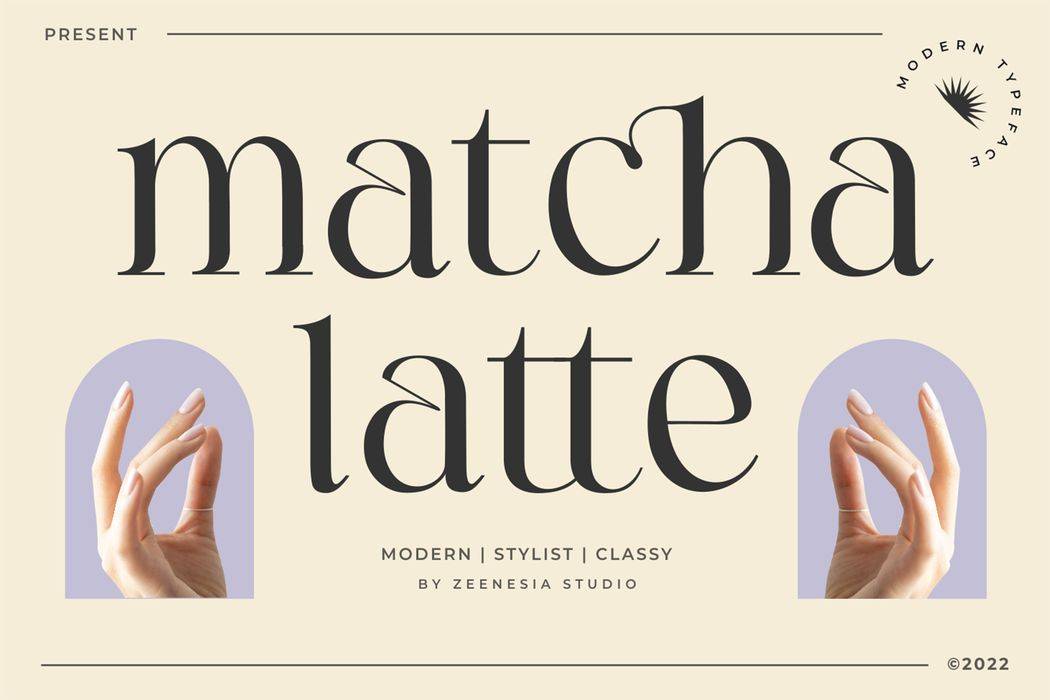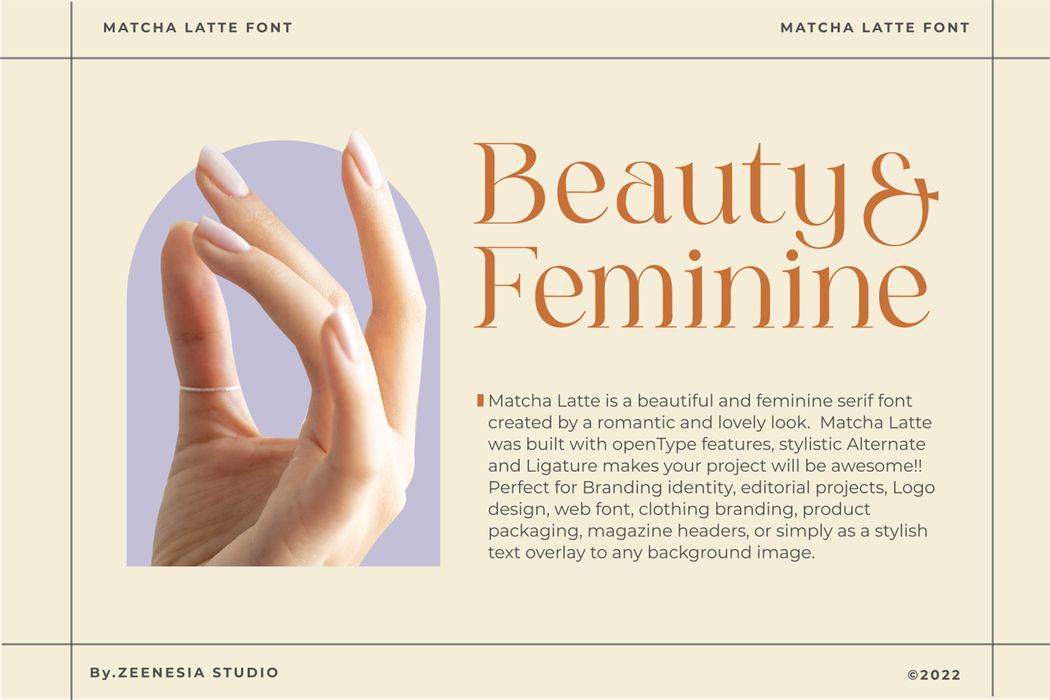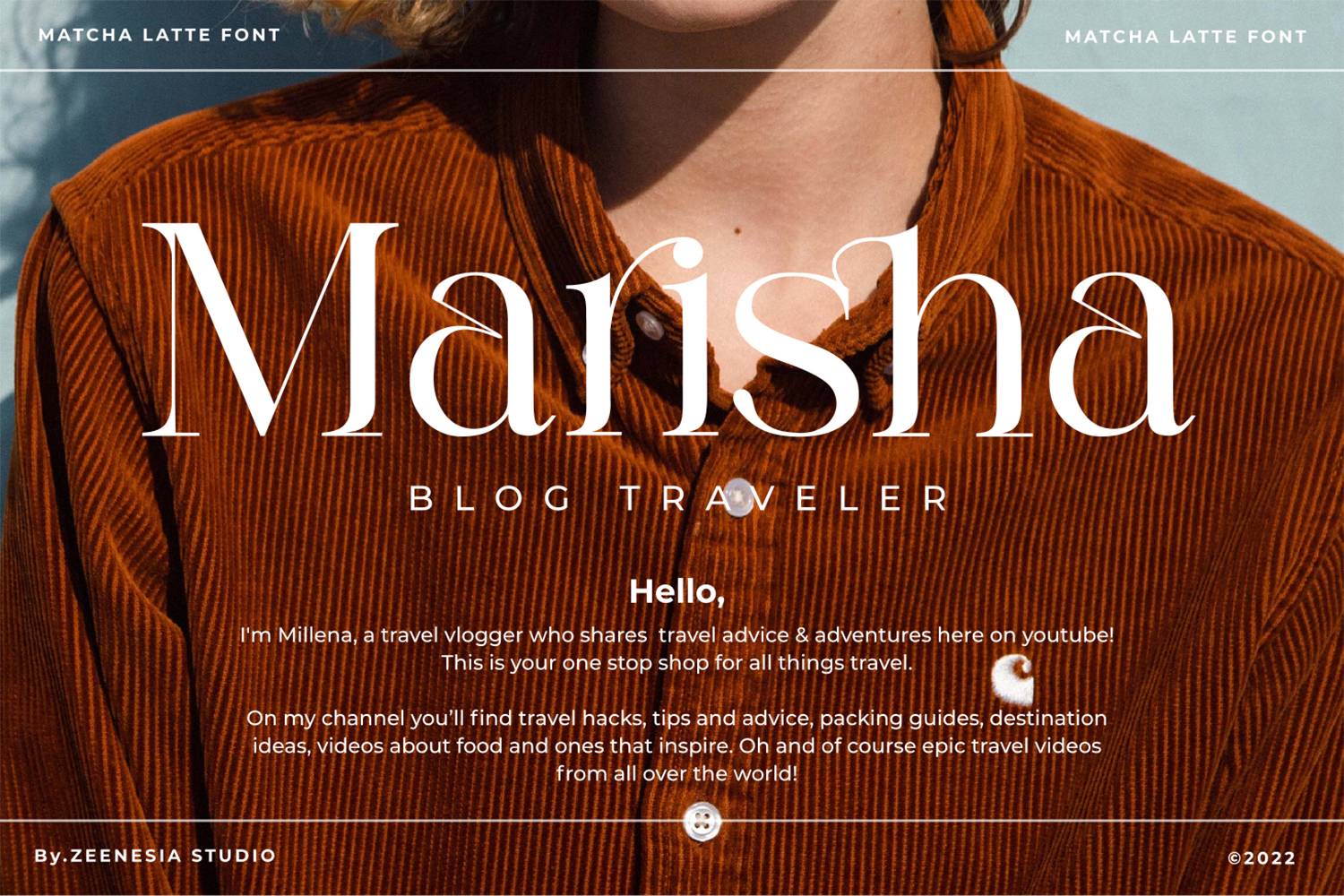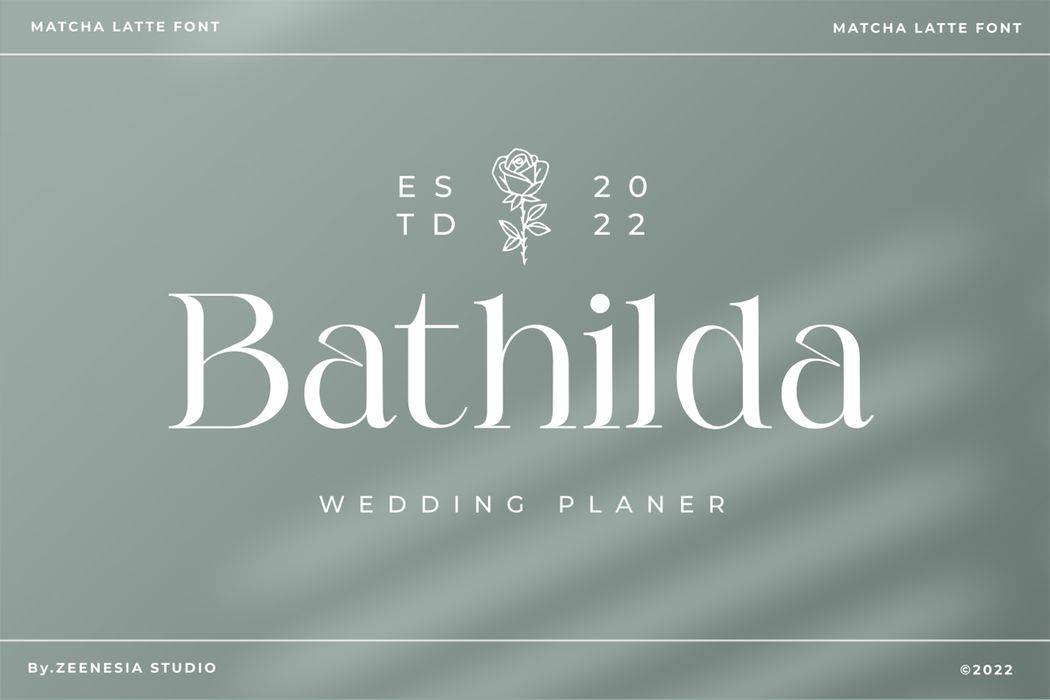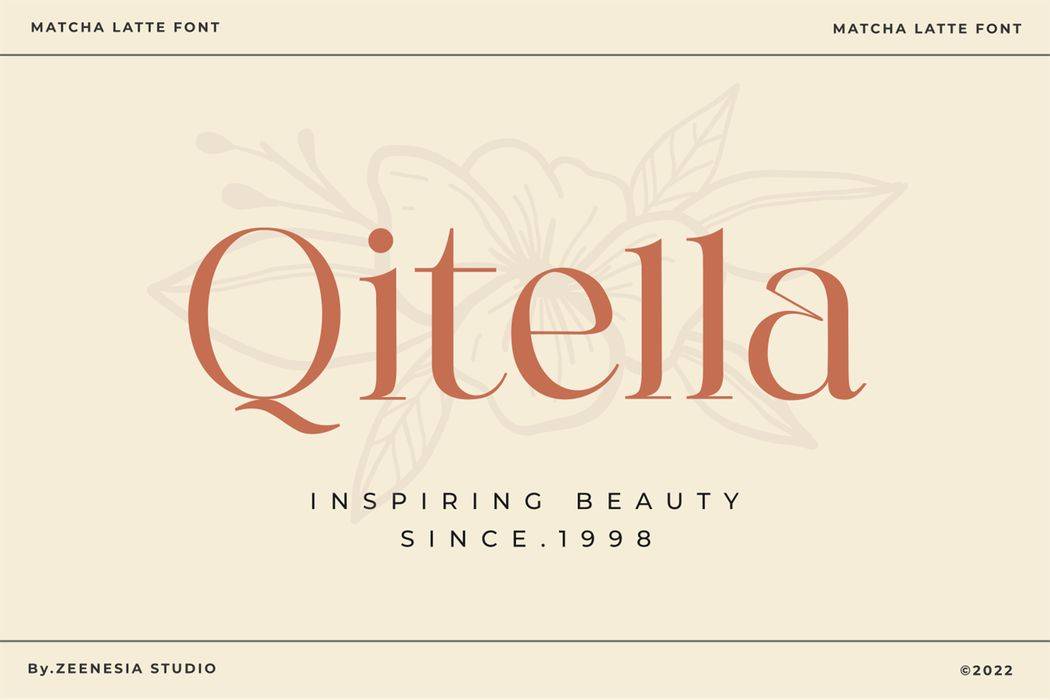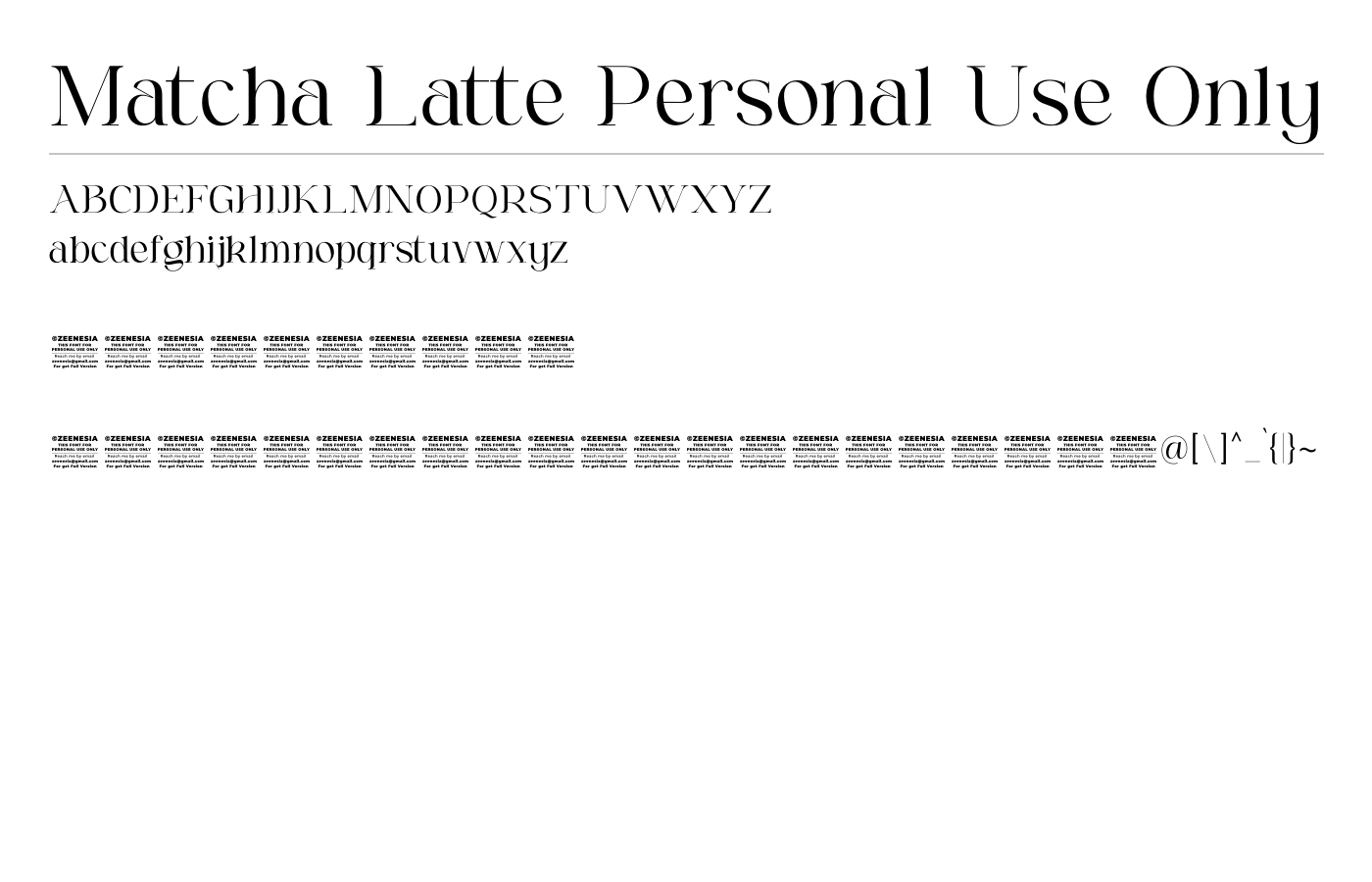
Matcha Latte is a slender serif font with an elegant, modern vibe, featuring thin strokes and high contrast that give it a refined and delicate look. Its tall x-height and unique letterforms, like the single-story 'a' and distinctive tails on characters, make it ideal for stylish headlines, logos, or editorial designs where a touch of sophistication is desired. This font works best in luxury branding, fashion, and upscale packaging, adding a sense of grace and modernity to any project.
Matcha Latte Font
About Matcha Latte Font